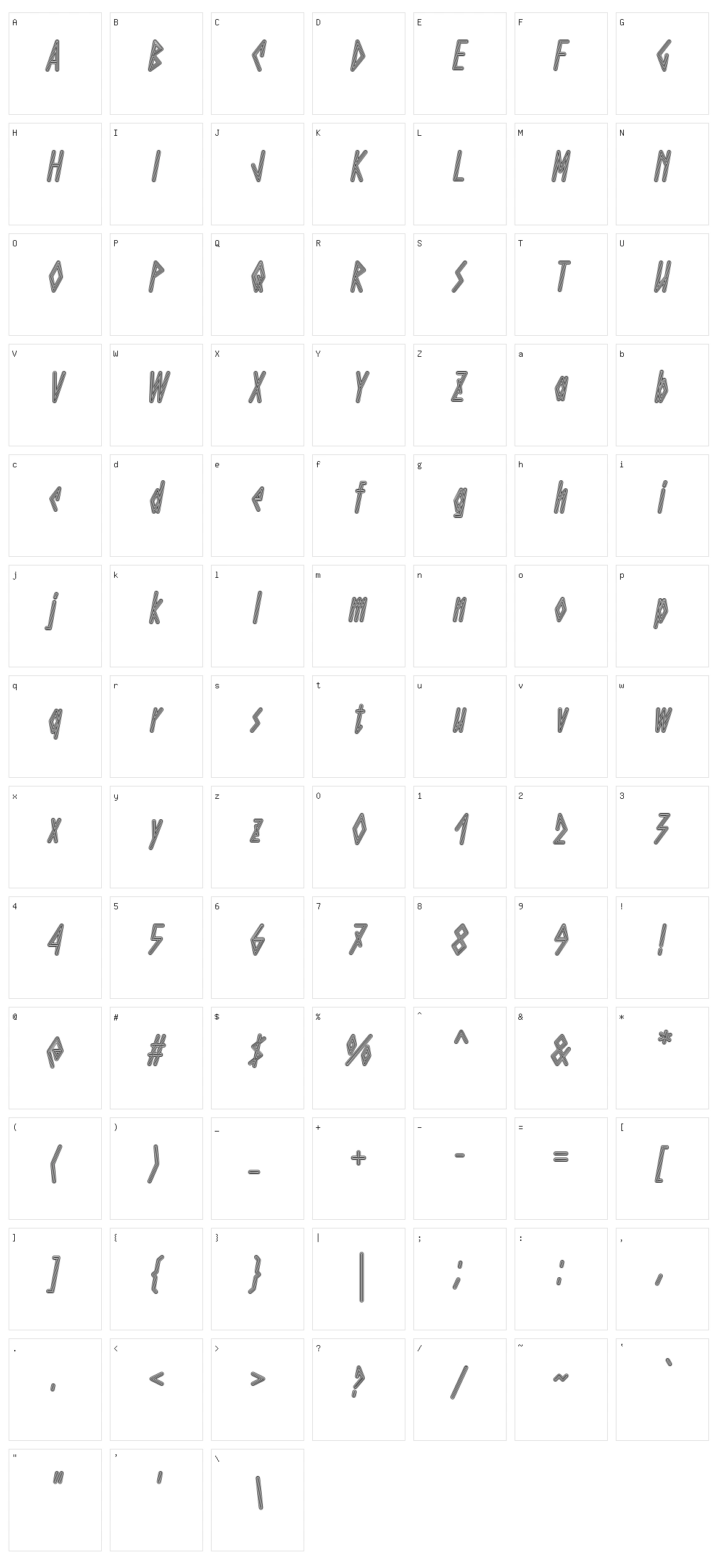
Baby Baby
Designed by: Dharma Type
Baby Baby Color is an OpenType-SVG color font family.
Baby Baby family is a set of 28 style in all.
In this whole family, Baby Baby Colors are samples that show Baby Baby family's potential.